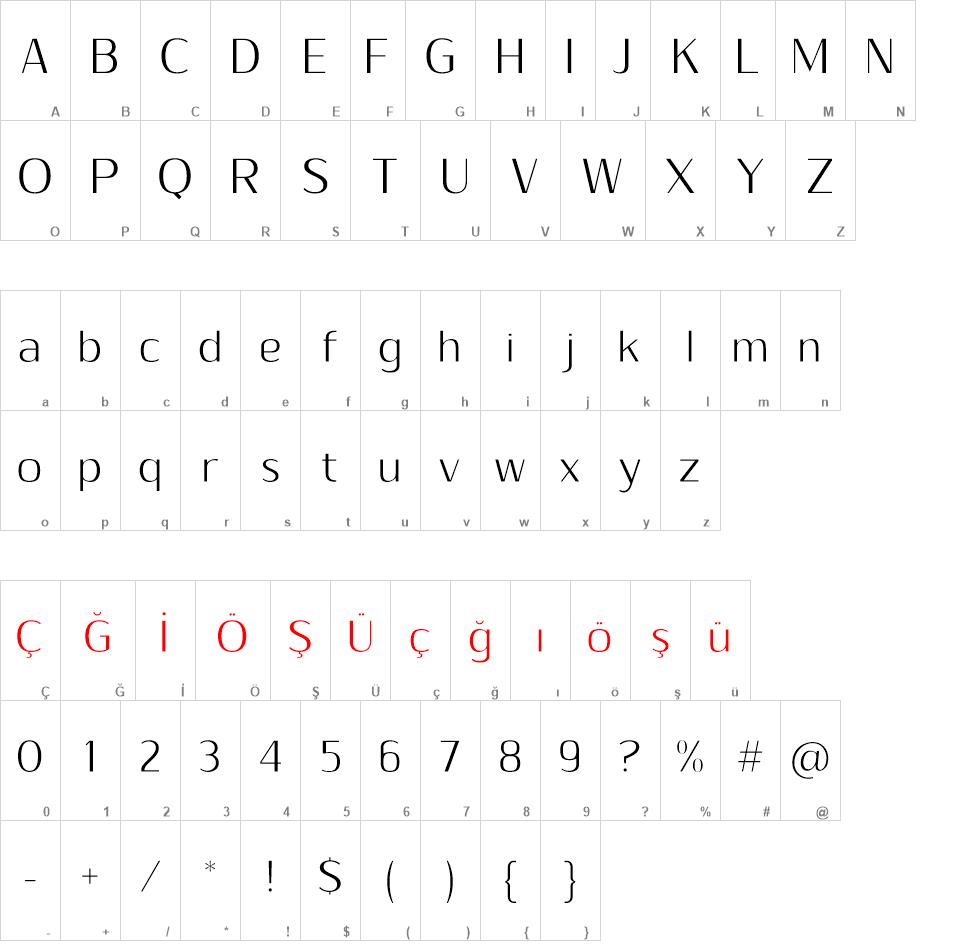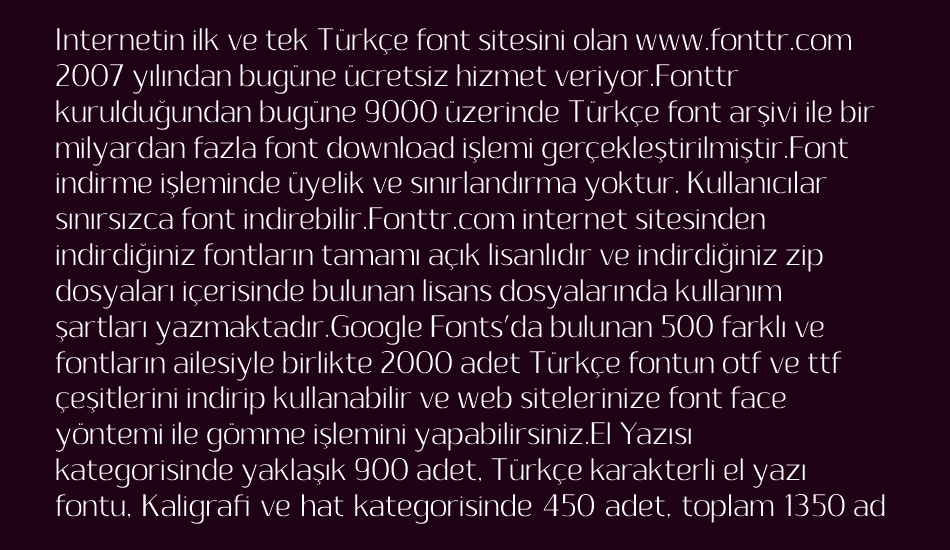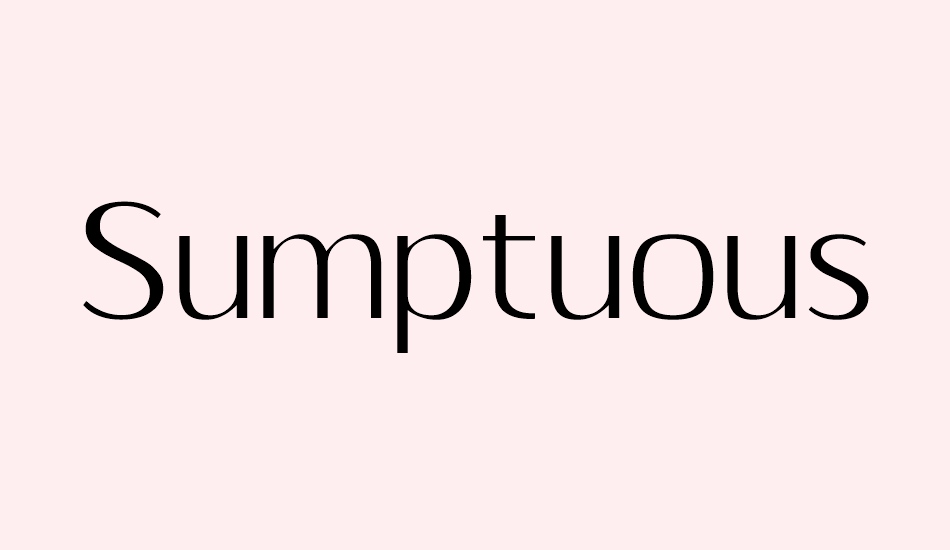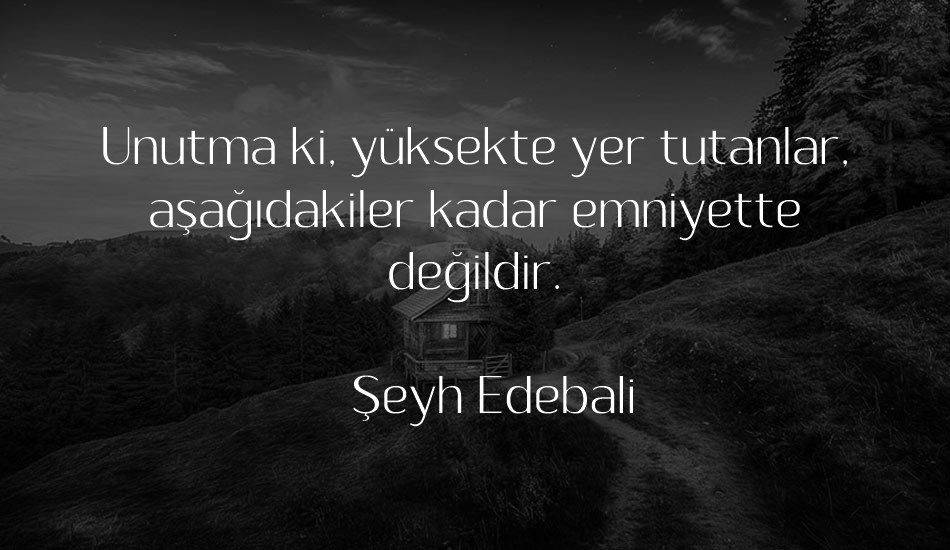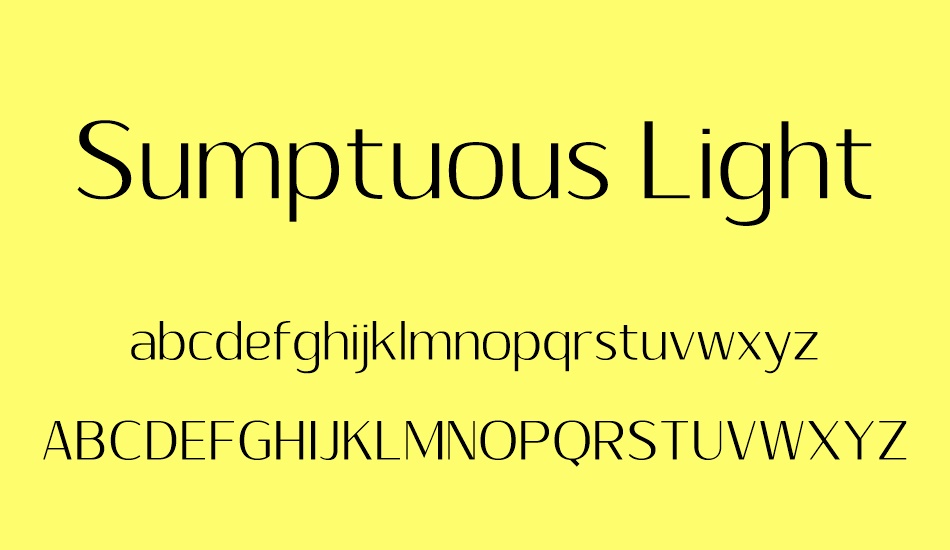
Sumptuous Light font
Sumptuous is a sans-serif family combining the geometric and the humanist models. presented by Locomotype. Suitable for magazine, paragraph, headline, body text and logo design. Complete family make your job is so easy to mix and match your designs to be more creative.
Cames with four weights, obliques, Latin and Cyrillic alphabets and OpenType features.